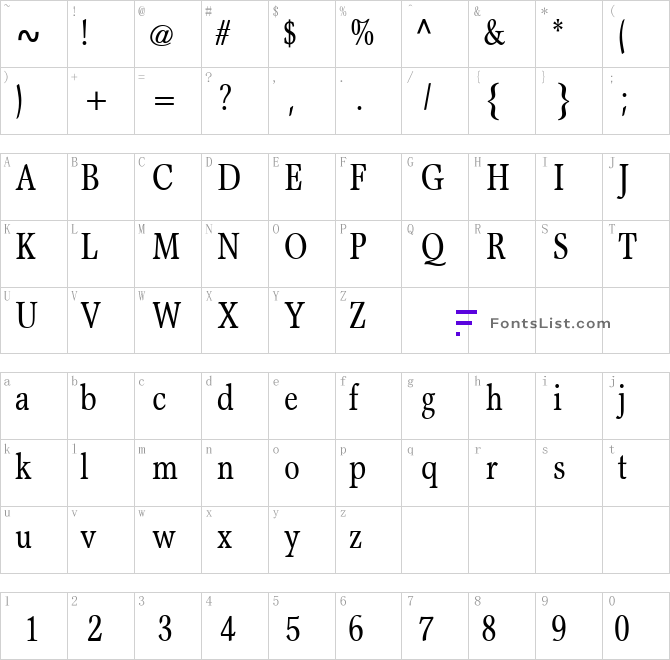
- Font Name:Axiomatic Condensed SSi
Axiomatic-Condensed-SSi-Condensed.ttf is a very beautiful artistic font, Axiomatic-Condensed-SSi-Condensed.ttf is widely used in the design and printing of various books and pictures,Axiomatic-Condensed-SSi-Condensed.ttf has a strong visual impact,Axiomatic-Condensed-SSi-Condensed.ttf is a commonly used font in newspapers, magazines and books, and is used in posters, e-commerce Poster design, store design, logo design, font design and other fields.Axiomatic-Condensed-SSi-Condensed.